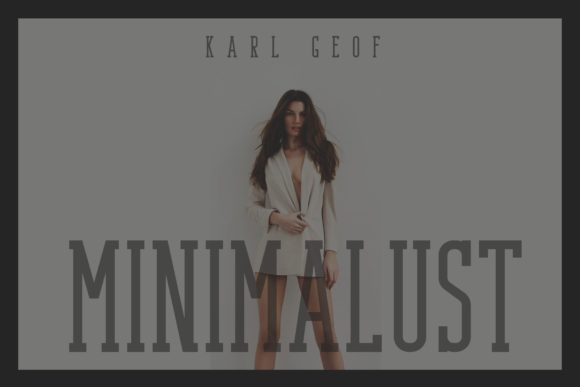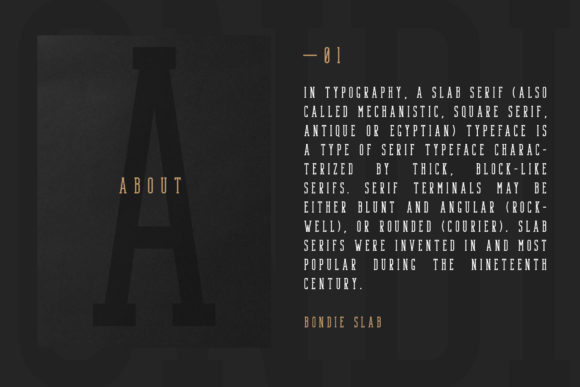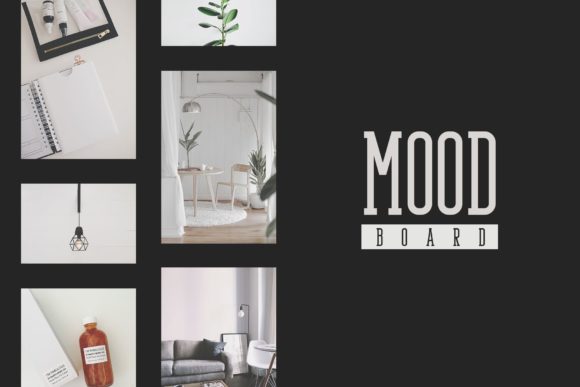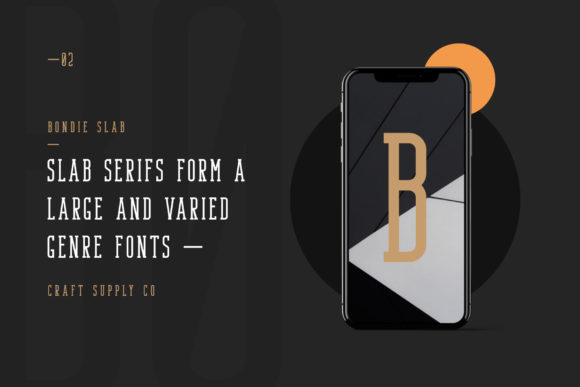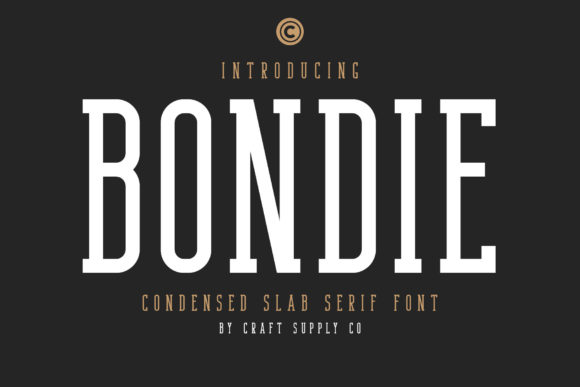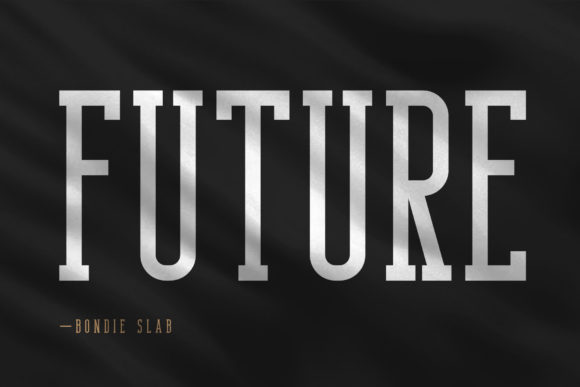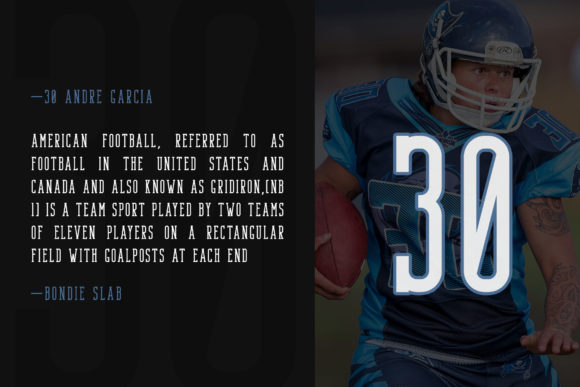
The Bondie is an elegant, condensed slab serif. It has solid lines and was based on compact fonts.
It’s suitable for modern envelops, hand drawn watercolor designs, crafting, any DIY projects, pop vintage deigns, and much more!
The Bondie is an elegant, condensed slab serif. It has solid lines and was based on compact fonts.
It’s suitable for modern envelops, hand drawn watercolor designs, crafting, any DIY projects, pop vintage deigns, and much more!